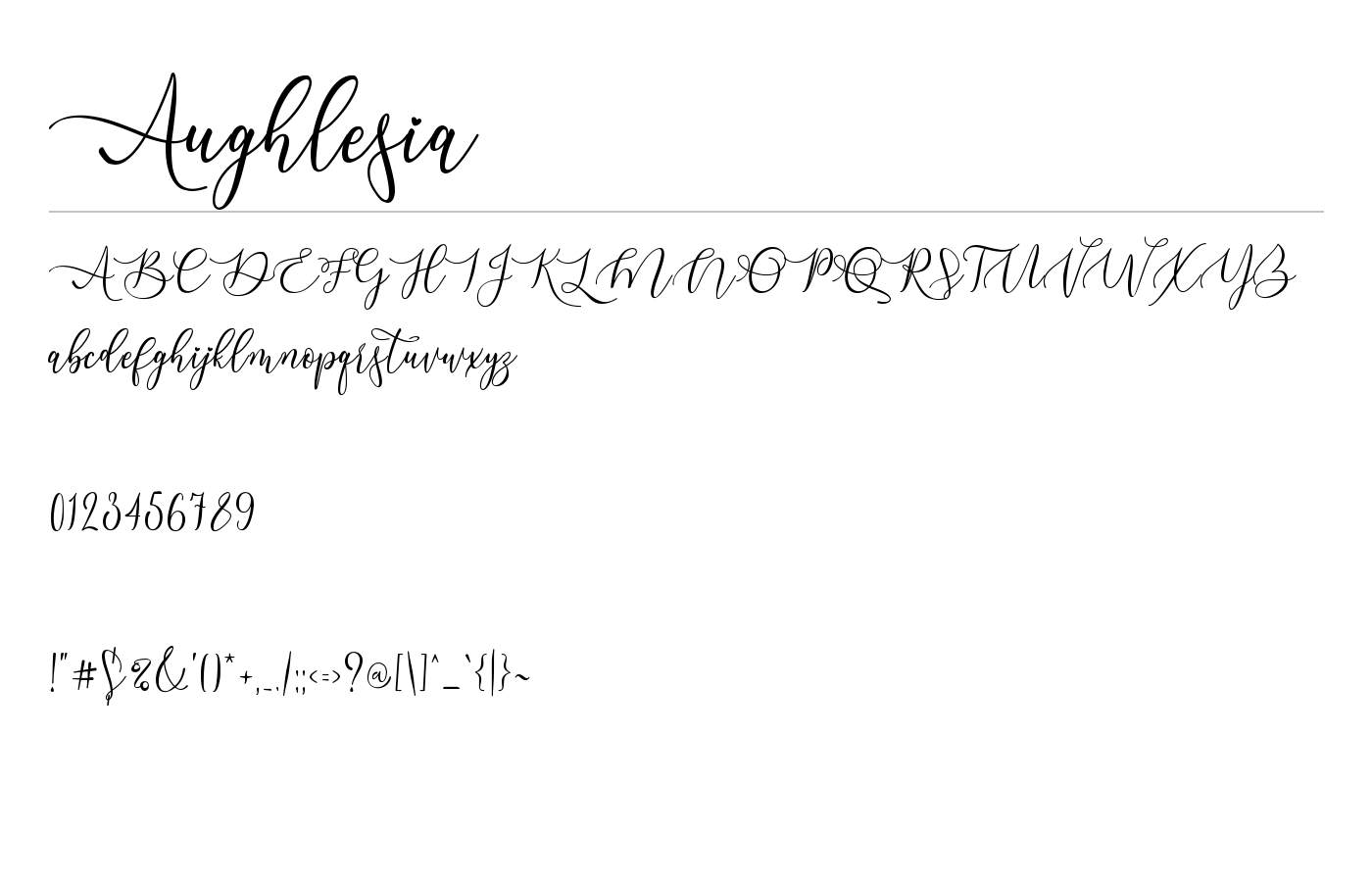
Aughlesia is an elegant script font characterized by its delicate, flowing strokes and graceful flourishes, giving it a refined and sophisticated feel. Its slender, calligraphic lines with subtle variations in thickness evoke a romantic and artistic vibe, making it perfect for wedding invitations, luxury branding, and feminine or creative design projects. This font shines in decorative uses like logos and headlines where its intricate style can truly stand out.
Aughlesia Font
About Aughlesia Font
| Designer | Aldedesign 2020 (Alde Saputro) |